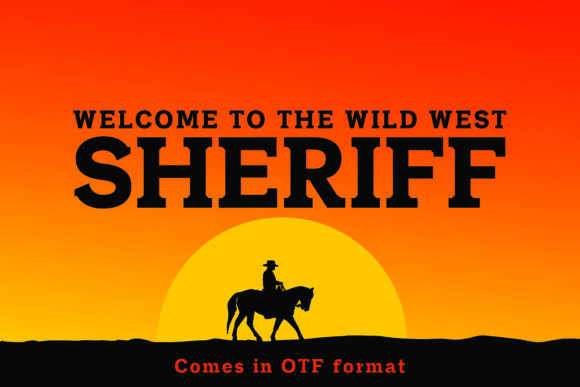
In a world where fonts speak louder than words, meet Sheriff Font – the ultimate typeface that captures the spirit of the untamed Wild West. Inspired by the rugged landscapes and the free-spirited cowboys, this font family will add a touch of adventure to your creative projects.
Sheriff Font is a serif font that exudes strength and character. Its bold strokes and distinctive curves evoke the resilience of the pioneers who conquered the frontier. This versatile font is perfect for creating logos that command attention, titles that leave a lasting impression, and invitations that transport your guests to a world of adventure.
With Sheriff Font, you can unleash your creativity and explore endless design possibilities. Whether you're designing a poster for a Western-themed event, creating a branding identity for your business, or simply adding a touch of rugged charm to your personal projects, this font will elevate your work to new heights.
Imagine the impact of a logo featuring the Sheriff Font, standing tall and proud like a lone ranger riding into town. Your brand will instantly convey a sense of authority, reliability, and a pioneering spirit. This font is not just a collection of letters; it's a storytelling tool that allows you to craft a narrative, evoke emotions, and create a lasting connection with your audience.
The Sheriff Font family is more than just a font; it's an expression of your unique style and personality. It's a way to make a statement, to stand out from the crowd, and to leave an indelible mark on the world. So saddle up, grab your creative reins, and let Sheriff Font guide you on an extraordinary design journey.